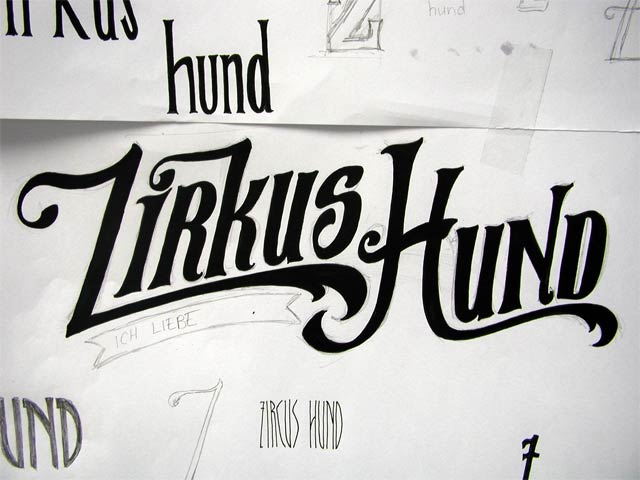
![]() Hello world Second day of our workshop. Today words became messages... or at least we tried to do that, which is not that easy. Save a horse, ride a cowboy... Longing for sun... Give me my steak... Balance through contrary... So, are we restless people? Yes, we are - because we are going from letter to letter, message to message - getting closer to our second ICH on day 2 of our workshop. Gute Nacht aus Weimar and don't forget YOUR message! ![]()